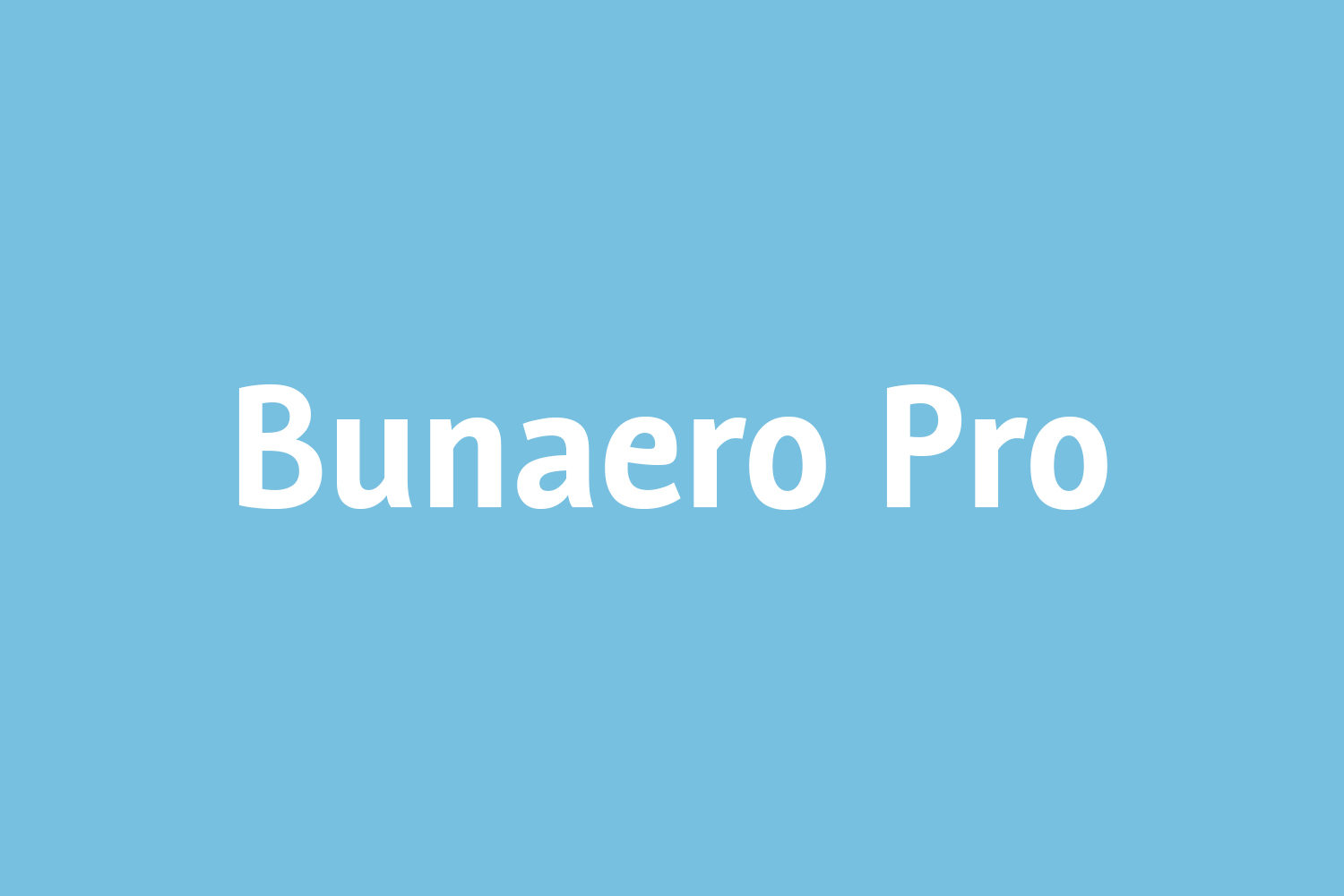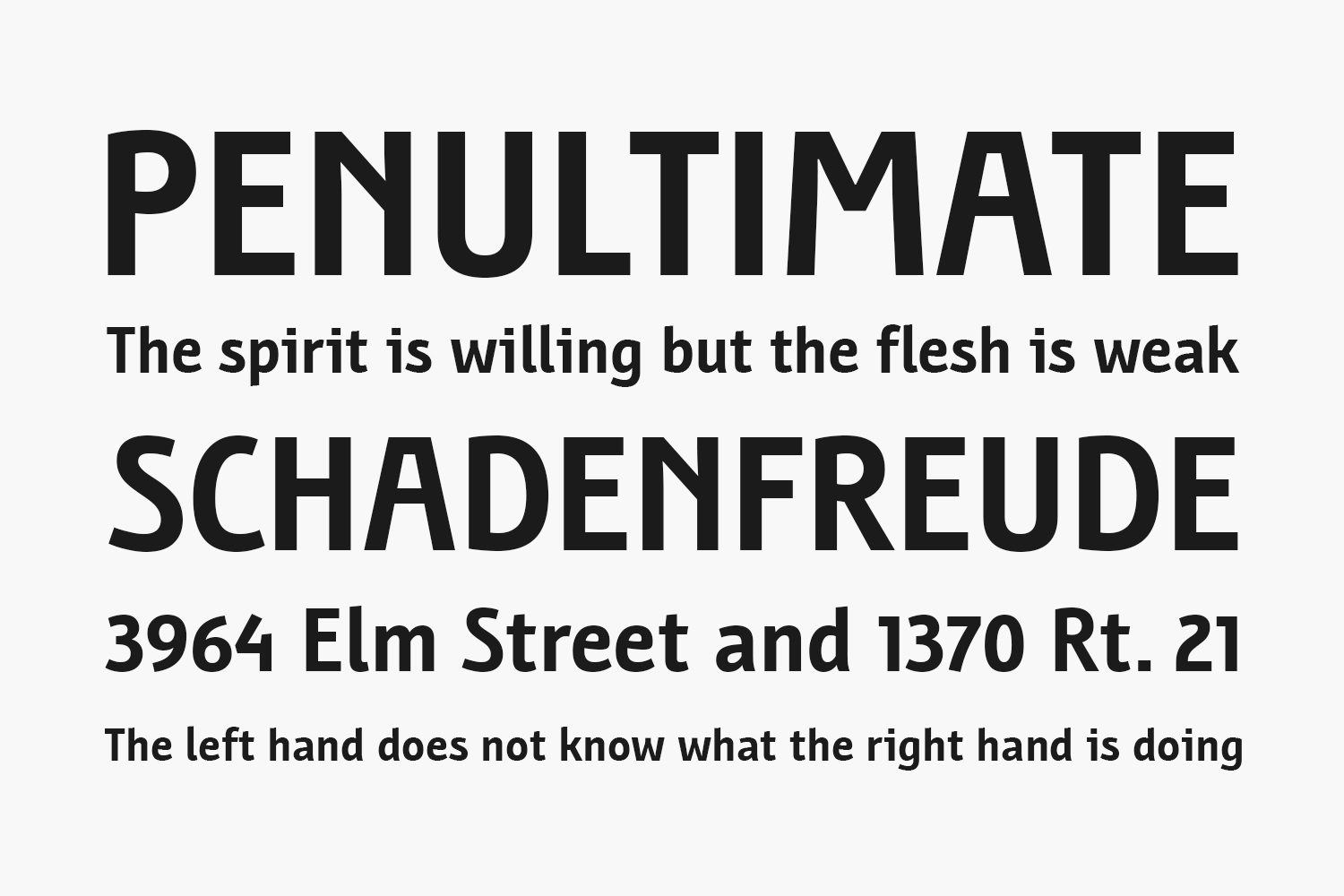
Bunaero Pro combines classical characteristics to a unique and distinctive font family with extravagant but also harmonious appearance. The characters are clear, open and sometimes bellied. Especially the caps have a very high waistline.
Based on this, four main states with different moods have been composed: The original Bunaero™, the more conservative “Classic”, the elegant and curvy “Up” and the matching ”Italic”. All states offer weights from a considerably thin „Hair“ to a real fat „Heavy“, so the family consists of 34 Styles, all with rather narrow width and very good legibility.
The font was manually hinted and contains extensive handcrafted kerning tables to ensure flawless appearance in all media.
It supports at least 99 languages incl. Vietnamese and provides ligatures, alternative glyphs, special localized forms and even more enjoyable OpenType® features.
This Pro version of Bunaero also includes a lot of features for sophisticated users: Lining figures for headline setting; Intermediate linings and oldstyle figures for text setting; Tabular versions of all figures; Superiors, inferiors, numerators, denominators and automated fractions; Language specialities like a capital Eszett for the german language and extra characters with a polish kreska instead an acute; And many more.